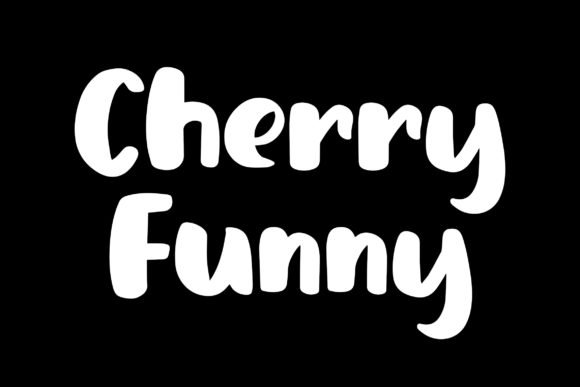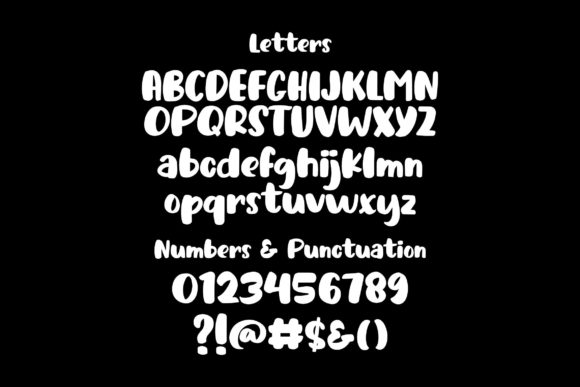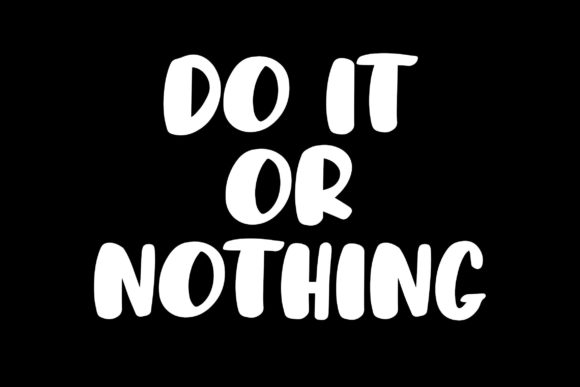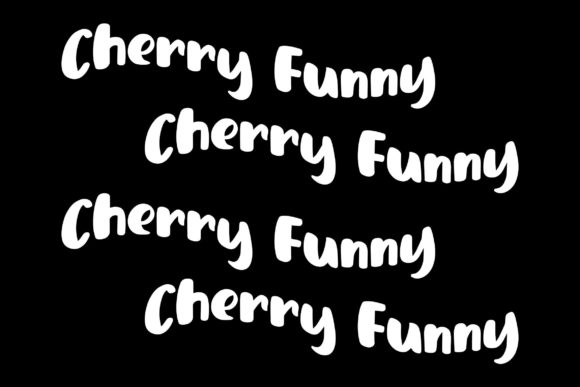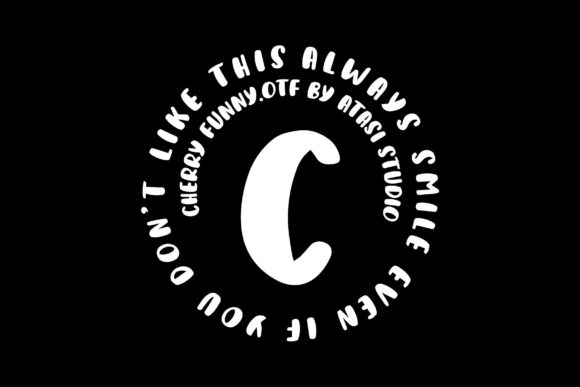
Discover the Perfect Blend of Fun and Funk: Cherry Funny Font
You’ve got that moment when you’re brainstorming ideas for a new project, and suddenly, a spark of creativity hits you. The words start flowing, and you can almost see the design come to life in your mind’s eye. For designers like you, finding the right font can be the difference between a mediocre design and a truly show-stopping one.
That’s where the Cherry Funny Font comes in – a bold, trendy display font that’s perfect for adding a touch of whimsy to your crafty projects. Whether you’re creating letterheads, titles, or stationery, this font is sure to bring a smile to your face and a dash of personality to your designs. And the best part? It’s a valuable asset for any designer looking to add some fun and flair to their work.
Key Features of Cherry Funny Font
- Font Family: A sans-serif font family designed for casual and playful use.
- Unique Characteristics: Features a unique blend of rounded edges and geometric shapes, giving it a distinctive and humorous feel.
Cherry Funny Font Review
First off, I have to say that I’m a fan of playful typography, and the Cherry Funny Font delivers ✨. It’s perfect for projects that need a lighthearted, whimsical touch. The font is well-suited for social media graphics, blog posts, and even children’s books. The designer has done a great job of creating a fun, approachable feel that’s hard to resist.
Here are some specific things that work well:
- Wide range of weights and styles ✨
- Customizable with a variety of swashes and flourishes ✨
- Excellent legibility, even at small font sizes ✨
- Limited support for non-Latin scripts ⚠️
- Some users may find the font too ornate or distracting ⚠️
- May not be suitable for formal or professional projects ⚠️
Overall, I think the Cherry Funny Font is a great choice for designers who want to add some personality to their projects. While it may not be the best fit for every project, it’s definitely a solid option for those looking for a fun, playful font. With a little creativity and restraint, this font can add a lot of value to your designs.
Cherry Funny Font is ideal for creating playful and eye-catching designs, such as:
- Invitations and party decorations
- Children’s books and educational materials
Cherry Funny Font Creative Project Ideas
Create a colorful menu board for a quirky café or restaurant using Cherry Funny Font. The playful font will add a fun touch to your menu, making it stand out and memorable.
Using Cherry Funny Font:
Use Cherry Funny Font for the menu item names and descriptions. You can pair it with a clean sans-serif font for the prices and other details.